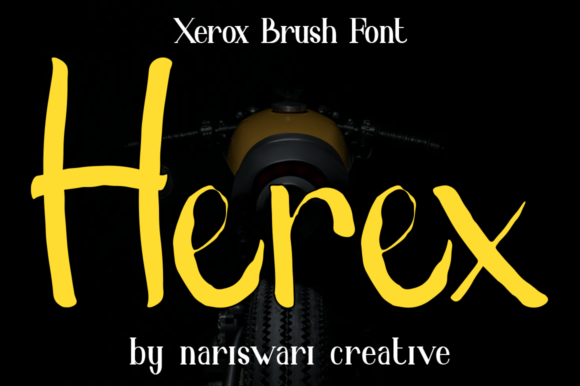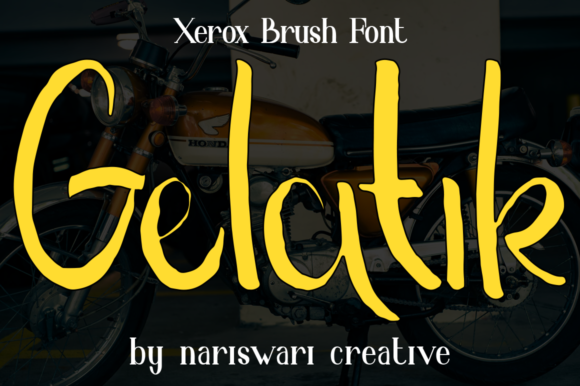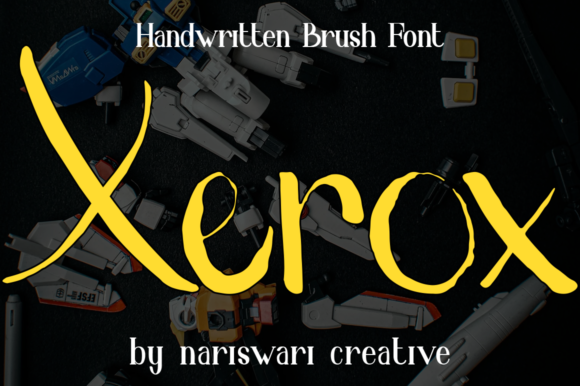
Xerox Font
About Xerox Font
Xerox is a neat and sweet handwritten font. Fall in love with its incredibly versatile style and use it to create gorgeous wedding invitations, beautiful stationary art, eye-catching social media posts, and much more!